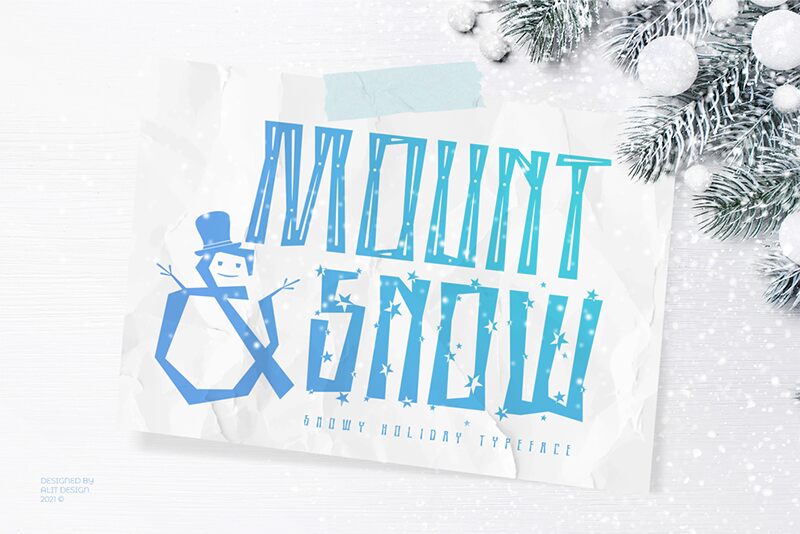
Mount & Snow is a stunning display font designed by Alit Design. With its semi-light weight and condensed width, this font is perfect for projects that require elegance and sophistication with a touch of modernity. It's ideal for branding, logo designs, packaging, and even editorial designs. Whether you're working on a luxury fashion brand or a minimalist tech company, Mount & Snow will elevate your project to new heights. Its sleek style and refined curves will make your text stand out from the crowd while adding an air of professionalism to any design. Try it out today!